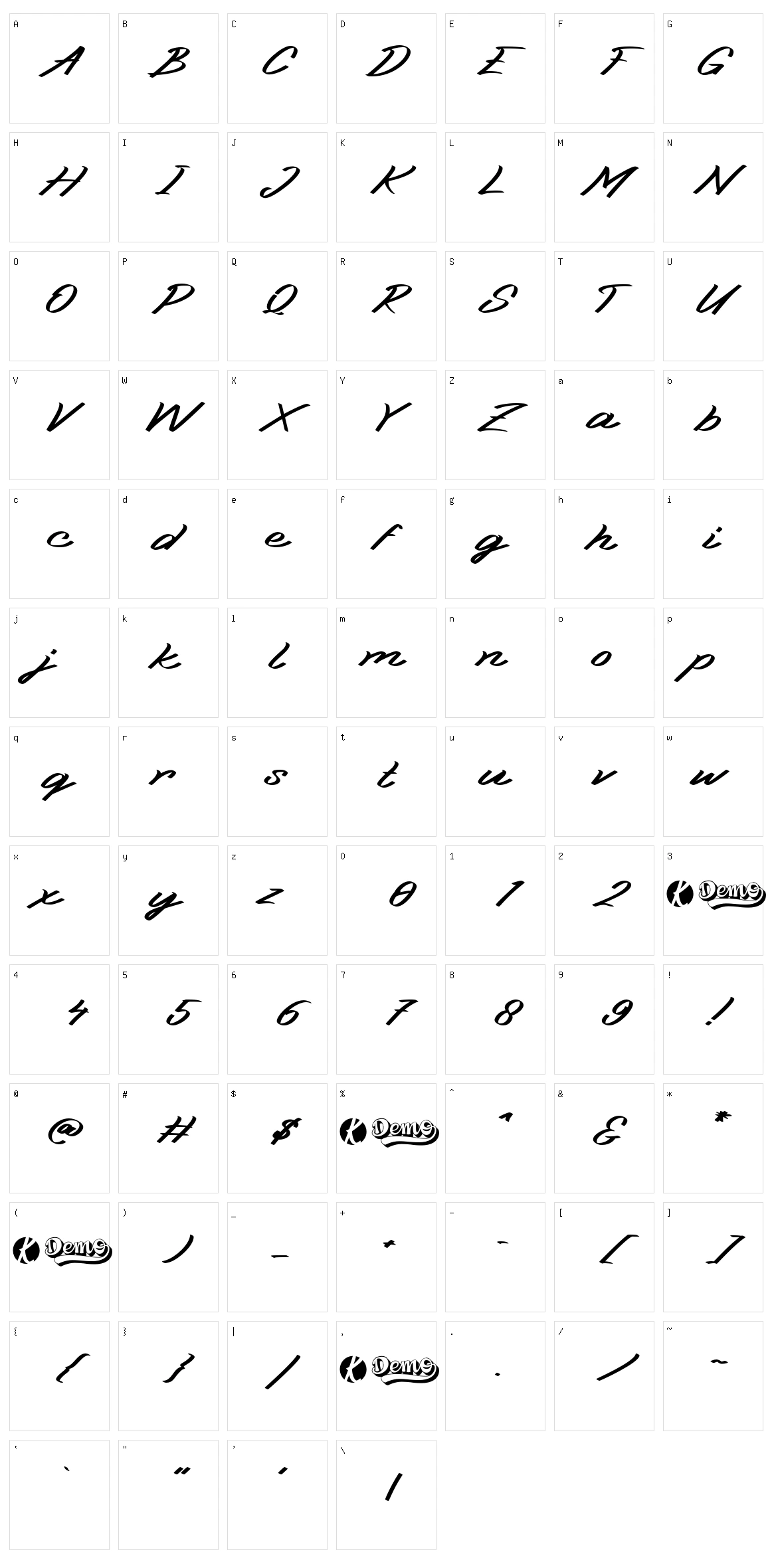
The free font Nitecity is carefully designed by Katario Studio, showcasing a thoughtful balance of creativity and usability and falls under the Script font style. When you download the ZIP file, it contains only 20.88 KB of font files, making it lightweight and quick to download. Please review the license details below to understand permitted usage and distribution rights. If license information is not available, we recommend using this font for personal projects only or contacting the author directly for commercial usage permissions.